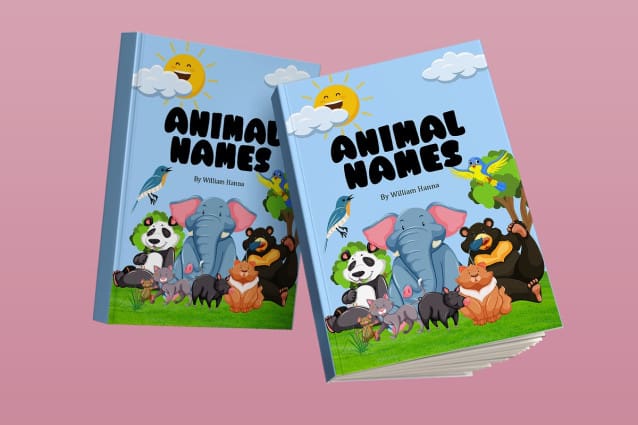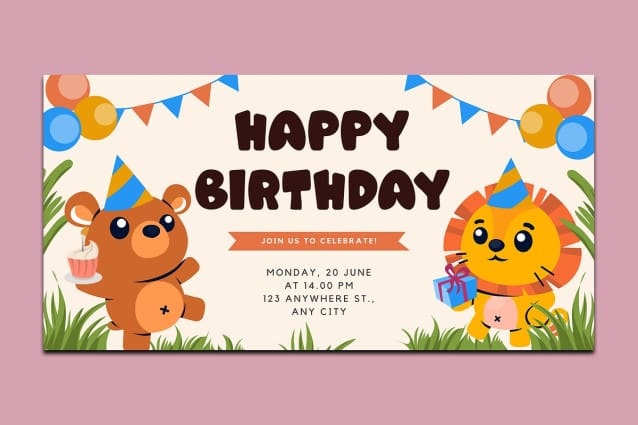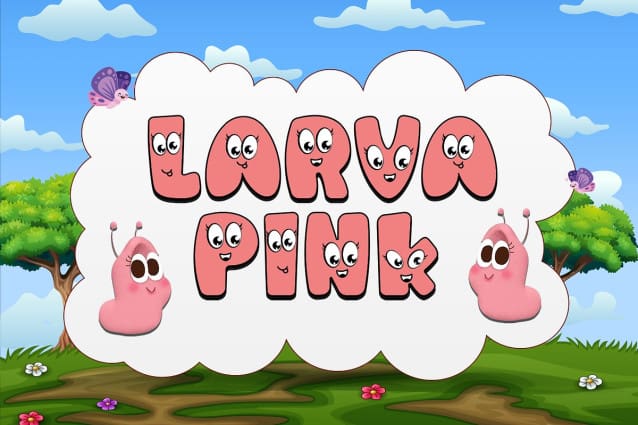
Larva Pink Font
Larva Pink Font, a modern kids font that infuses vibrant fun and endless creativity into your design projects. Perfect for children’s book designers, educators, and creatives looking to capture the joy and imagination of young audiences, Larva Pink offers a delightful and colorful typeface that brings any design to life.
Ideal for children’s books, posters, educational materials, logos, and toy packaging, LarvaPink’s bold and playful characters provide a friendly and engaging aesthetic. Each letter is meticulously crafted to ensure readability and visual appeal, making your designs both effective and enchanting.
The “Larva Pink” font includes a complete set of uppercase and lowercase letters, numbers, punctuation marks, and special characters. This versatility allows for seamless integration into various design projects, from lively posters to charming storybooks.
Add a burst of color and creativity to your designs with Larva Pink, the modern kids font that turns every project into a playful and vibrant adventure.